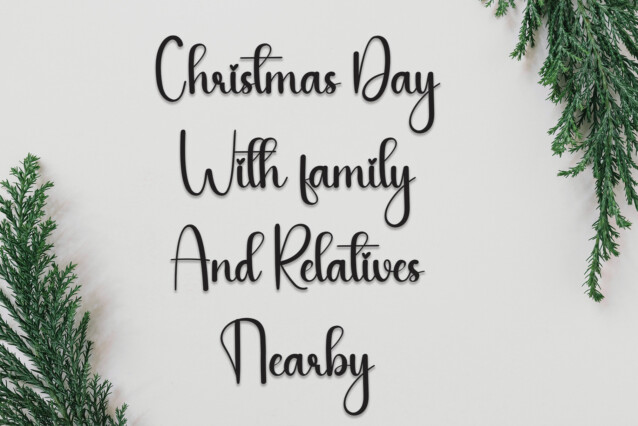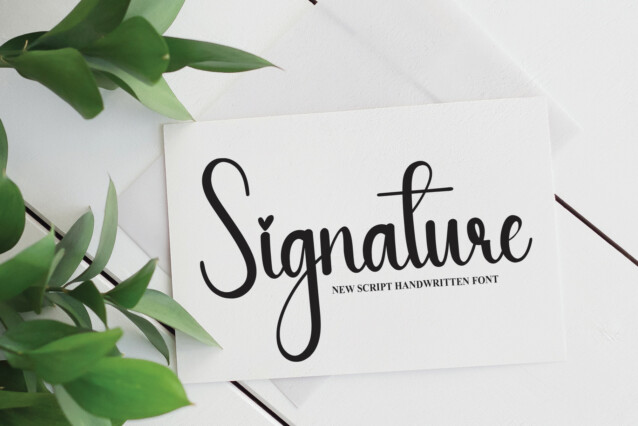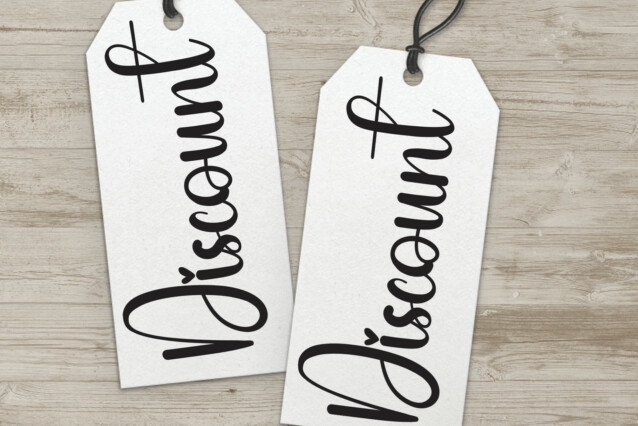
Simple Saturday Script Typeface
Simple Saturday Script Typeface is a cool and casual handwritten font. Whether you’re using it for crafts, digital design, presentations, or making greeting cards, this font has the potential to become your favorite go-to font, no matter the occasion.